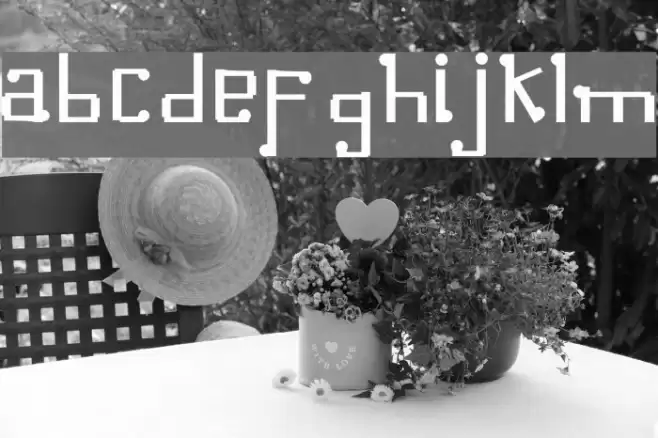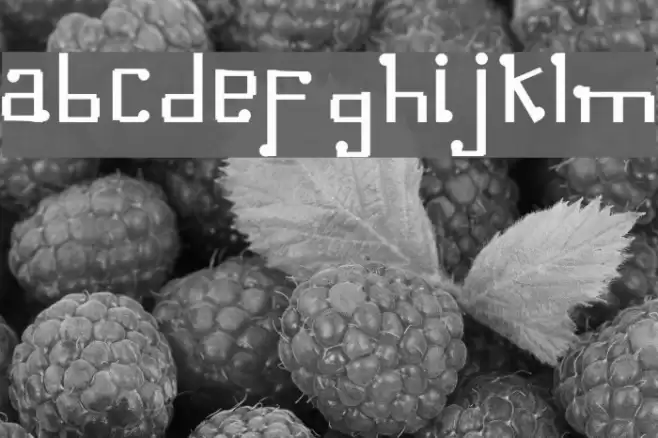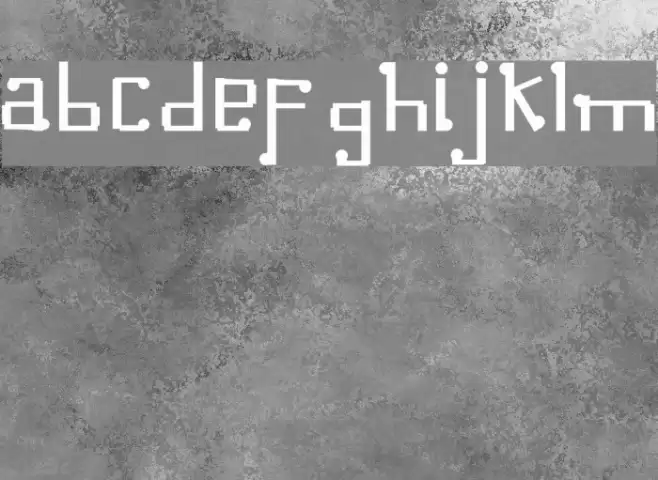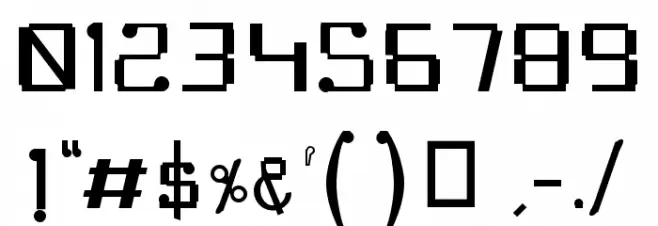
Omellons Medium Font
Omellons Medium Description
This font features a unique and modern design with a geometric and slightly futuristic appearance. The characters are constructed with a combination of straight lines and sharp angles, giving it a distinctive and edgy look. The uppercase and lowercase letters maintain a consistent style, with uniform stroke thickness and a slightly condensed form. The numerals and special characters follow the same design principles, ensuring a cohesive appearance across all glyphs. This font's bold and structured design makes it suitable for projects that require a contemporary and eye-catching aesthetic.
A modern, geometric font with sharp angles and a futuristic style from Uncategorized fonts.
- Proposed Projects: Ideal for tech-related branding, modern posters, digital interfaces, and futuristic-themed designs.
- Use Case: Headlines, Logos, Digital Interfaces